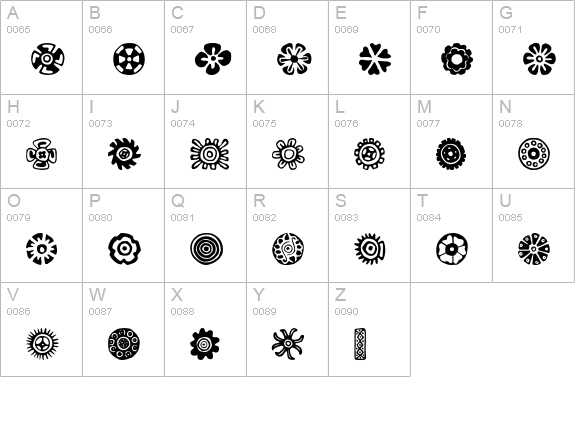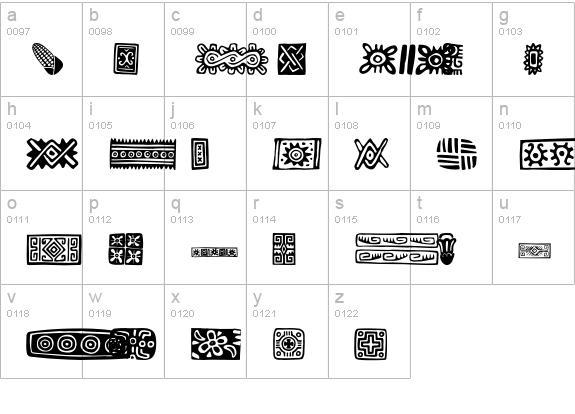
PreColumbian Ornaments One Font Details
PreColumbian Ornaments One font is a stunning typeface inspired by ancient Mesoamerican art and culture. This ornate and intricate font features intricate patterns and designs reminiscent of pre-Columbian civilizations. The detailed glyphs and symbols in this font are perfect for adding a touch of historical elegance to your projects. What makes PreColumbian Ornaments One font even more appealing is that it is available for free download at FontsMarket.com. This means you can easily enhance your designs with this unique and eye-catching font without any cost. Whether you're working on a project that requires a touch of historical flair or simply want to add a touch of exotic beauty to your designs, PreColumbian Ornaments One font is the perfect choice. Download it for free today and elevate your design projects to the next level.